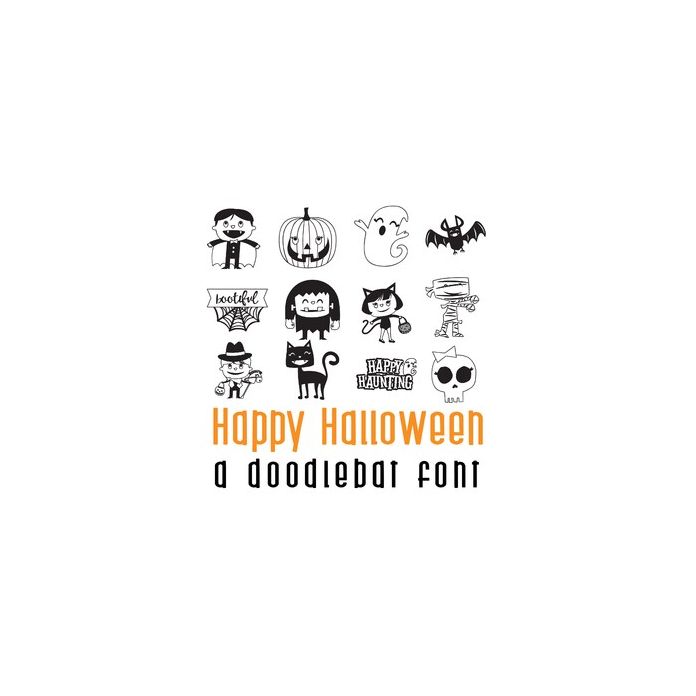
This fun doodle style doodlebat font features 26 spooky Halloween characters and images. Perfect for cards, crafts, gifts, decor, scrap book pages, planner stickers and more!